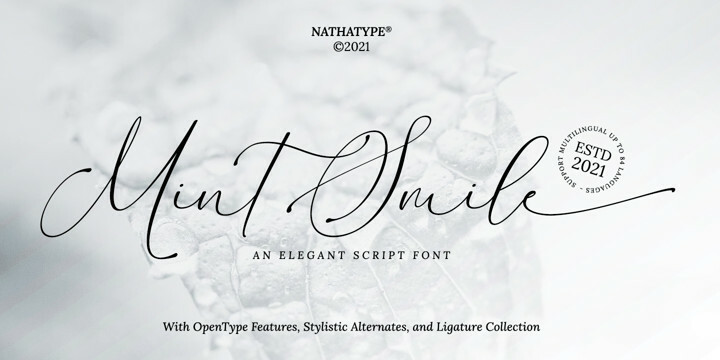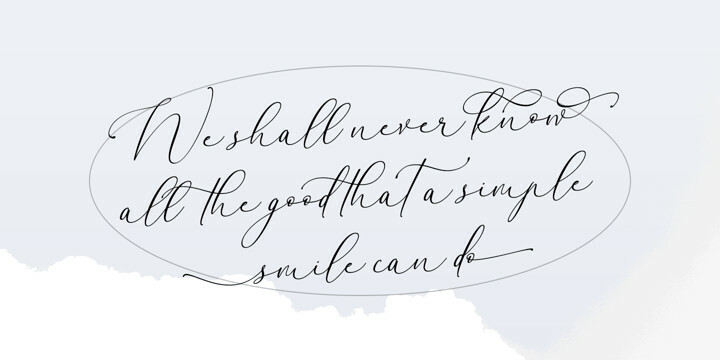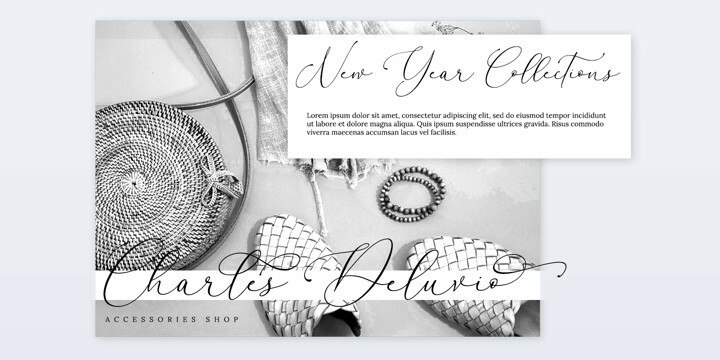
Mint Smiles Font
Mint Smiles FontMint Smile is an fresh and modern script with a handmade calligraphy style. Perfect for adding a touch of whimsy to your already amazing designs. This font is perfect for branding projects, home appliance design, product packaging, use in business cards, invitation cards, etc. Simply as a stylish text overlay onto a background image or anything that requires a touch of elegance.